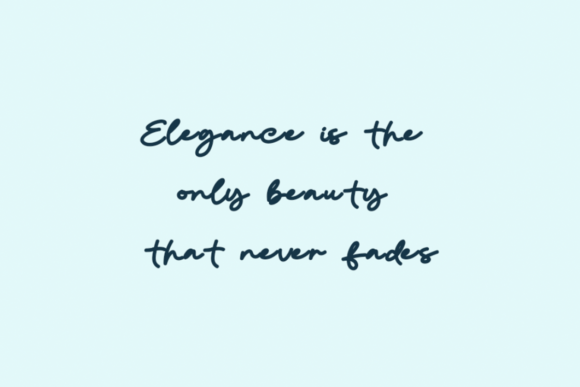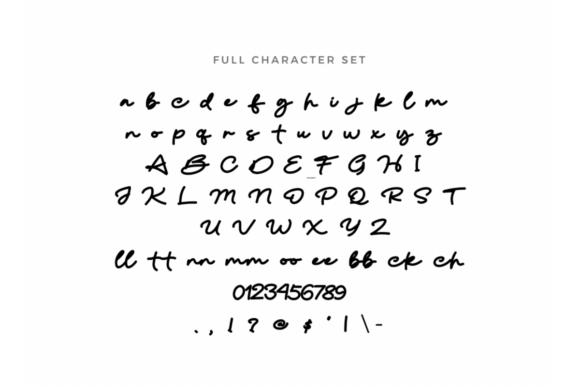
Discover the Enchanting Angolia Font: A Handwritten Script with a Personal Touch
Are you looking for a font that can add a touch of elegance, whimsy, and warmth to your creative projects? Look no further than Angolia, a one-of-a-kind handwritten script font that is sure to captivate your audience. With its hand-lettered touch, Angolia brings a unique personality to your words, making it perfect for designers, crafters, and anyone looking to add a personal touch to their work.
The Charm of Angolia
Angolia is more than just a font – it’s an experience. Its enchanting, handwritten script is crafted with love and care, giving it a distinct charm that sets it apart from other fonts. The hand-lettered touch of Angolia adds a level of warmth and personality to your text, making it perfect for projects that require a personal touch. Whether you’re working on a branding project, a wedding invitation, or a social media post, Angolia is sure to make your words stand out.
A Beautiful Blend of Elegance, Whimsy, and Warmth
One of the unique features of Angolia is its ability to blend elegance, whimsy, and warmth in a single font. The elegant flow of the script is perfect for formal projects, while the whimsical touches add a playful and creative element. The warmth of the font makes it perfect for projects that require a personal and approachable tone. With Angolia, you can create a wide range of designs, from sophisticated and luxurious to playful and fun.
Angolia is a versatile font that is perfect for a wide range of creative projects. Whether you’re a designer, a crafter, or a DIY enthusiast, Angolia can help you add a personal touch to your work. The font is ideal for:
- Branding projects: Use Angolia to create a unique and memorable brand identity that stands out from the crowd.
- Wedding invitations: Add a touch of elegance and whimsy to your wedding invitations with Angolia.
- Social media posts: Use Angolia to create eye-catching social media posts that grab attention and convey your message.
- Stationery: Create beautiful stationery, such as notebooks, journals, and greeting cards, with Angolia.
The Exquisite Flow of Angolia
One of the standout features of Angolia is its exquisite flow. The font is designed to flow smoothly and elegantly, making it perfect for long texts and paragraphs. The flow of Angolia is also highly legible, making it easy to read and understand. Whether you’re working on a long-form project or a short and sweet message, Angolia’s flow is sure to impress.
Why Choose Angolia?
So why choose Angolia over other fonts? Here are just a few reasons:
- Unique and one-of-a-kind: Angolia is a truly unique font that will set you apart from the crowd.
- Hand-lettered touch: The hand-lettered touch of Angolia adds a level of warmth and personality to your text.
- Versatile: Angolia is perfect for a wide range of creative projects, from formal to playful.
- Elegant and whimsical: Angolia blends elegance and whimsy in a single font, making it perfect for a wide range of designs.
In conclusion, Angolia is a truly enchanting font that is sure to captivate your audience. With its hand-lettered touch, exquisite flow, and unique blend of elegance, whimsy, and warmth, Angolia is perfect for designers, crafters, and anyone looking to add a personal touch to their work. Whether you’re working on a branding project, a wedding invitation, or a social media post, Angolia is sure to make your words stand out. So why wait? Discover the charm and personality of Angolia today and take your creative projects to the next level.